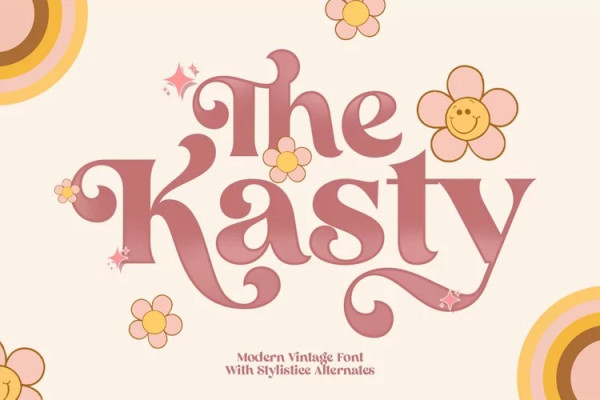
Kasty Font
Kasty Font is a special modern style font. Made with accurate accuracy with beautiful curves. With alternative characters and ligatures that make your work very special. It is perfect for branding design, logos, greeting cards, title packaging. and other designs. Immediately use our fonts to make your work even more amazing.